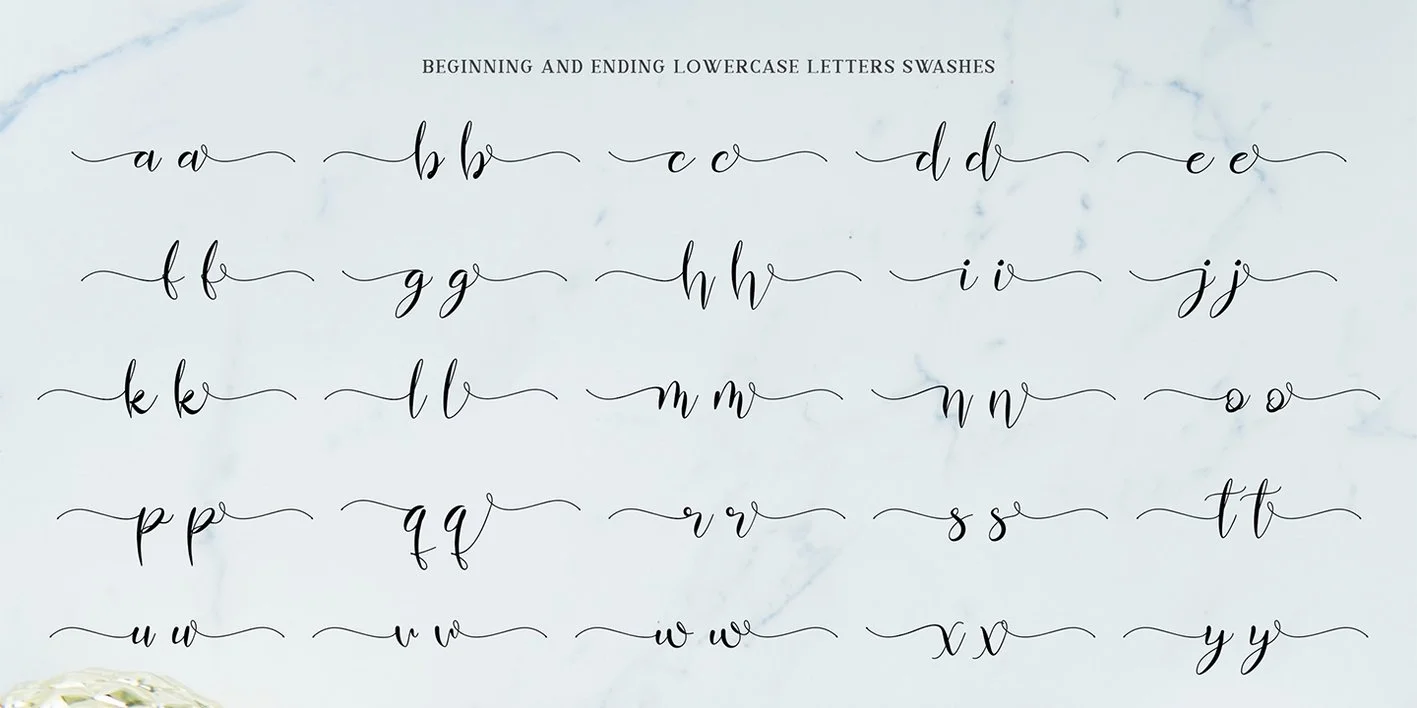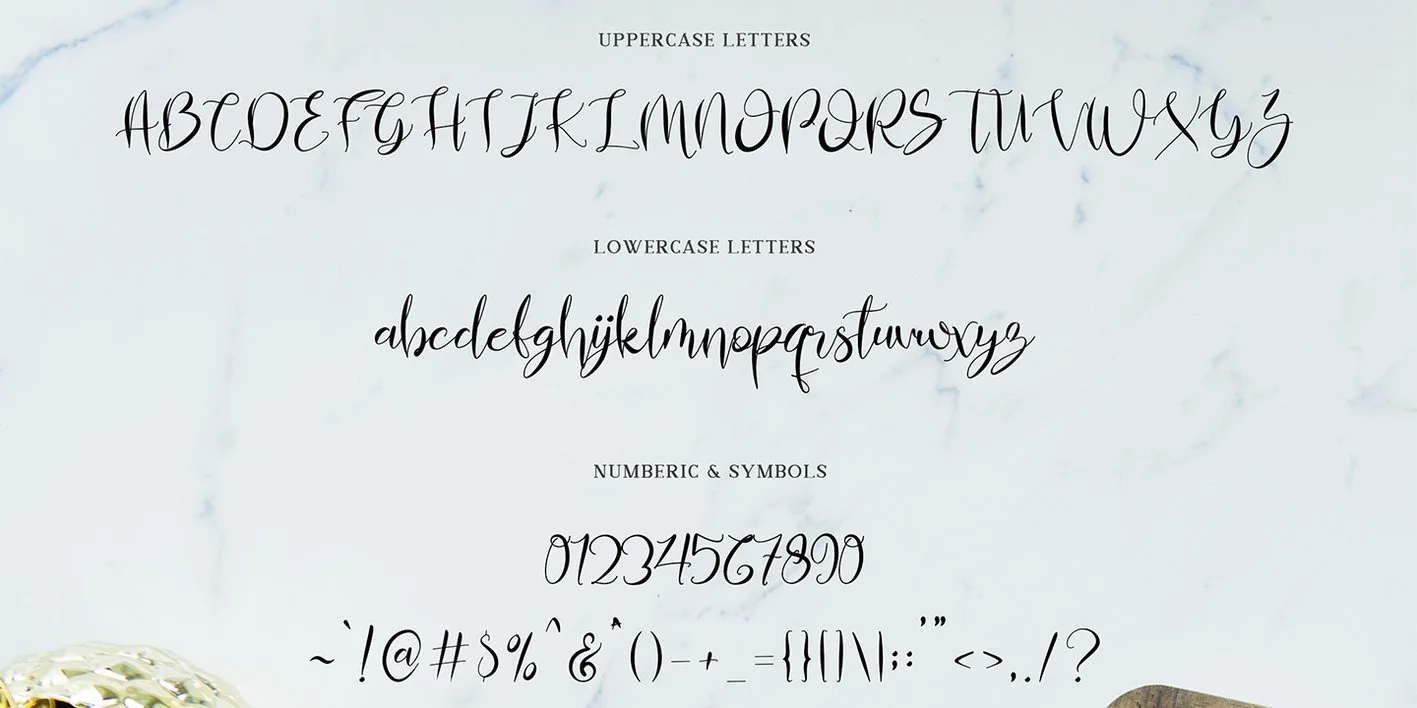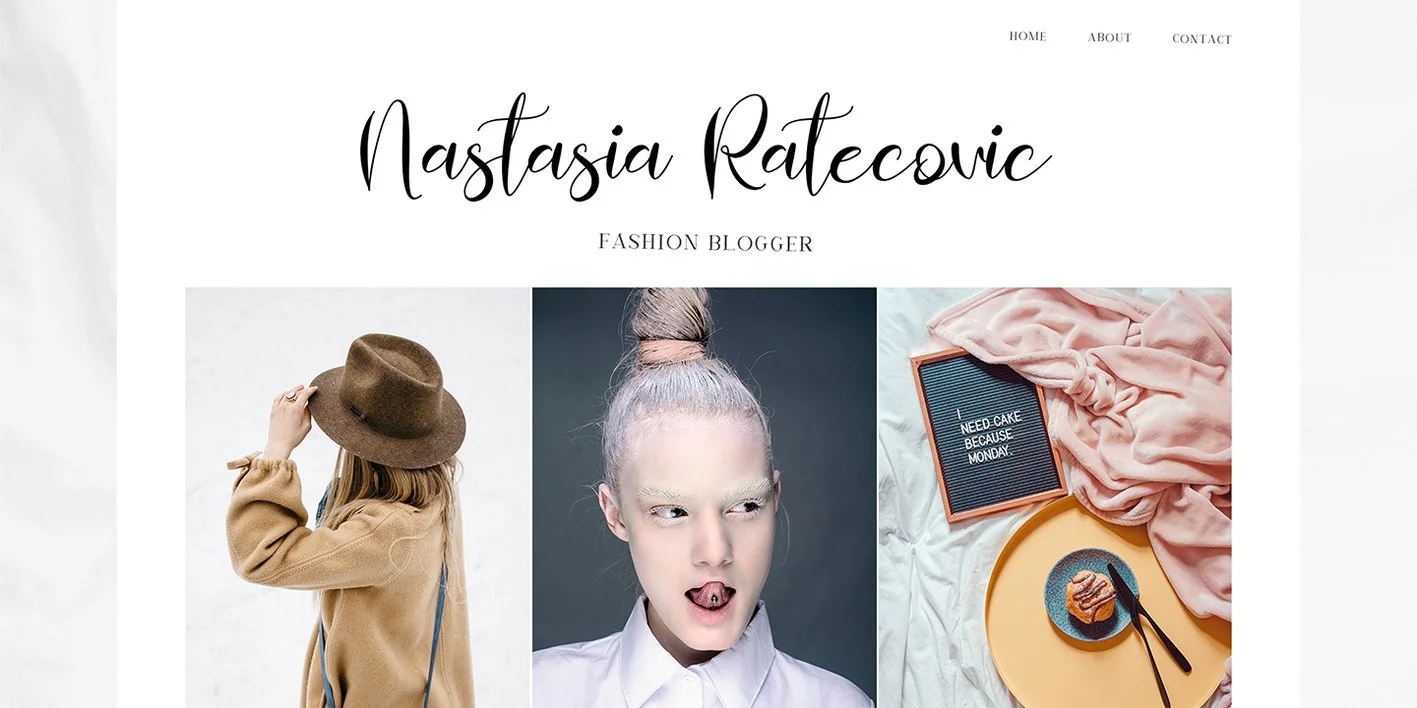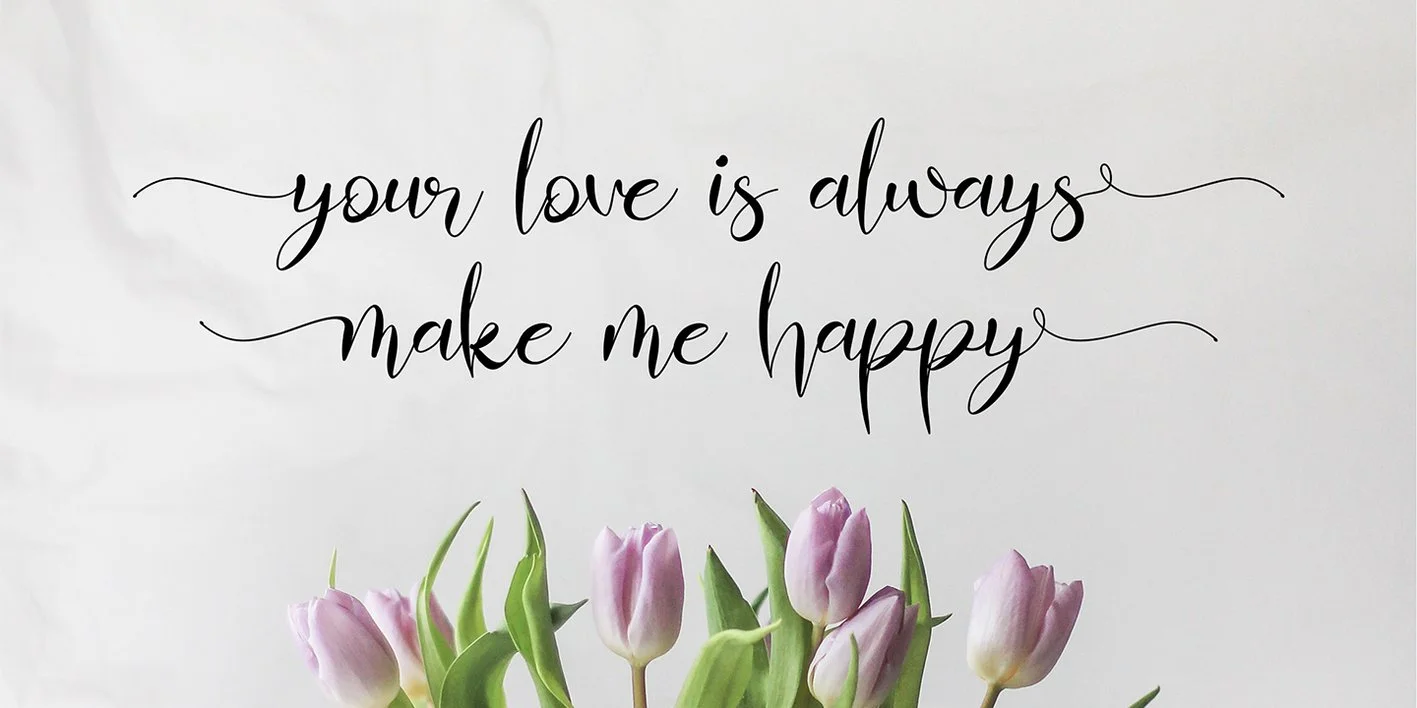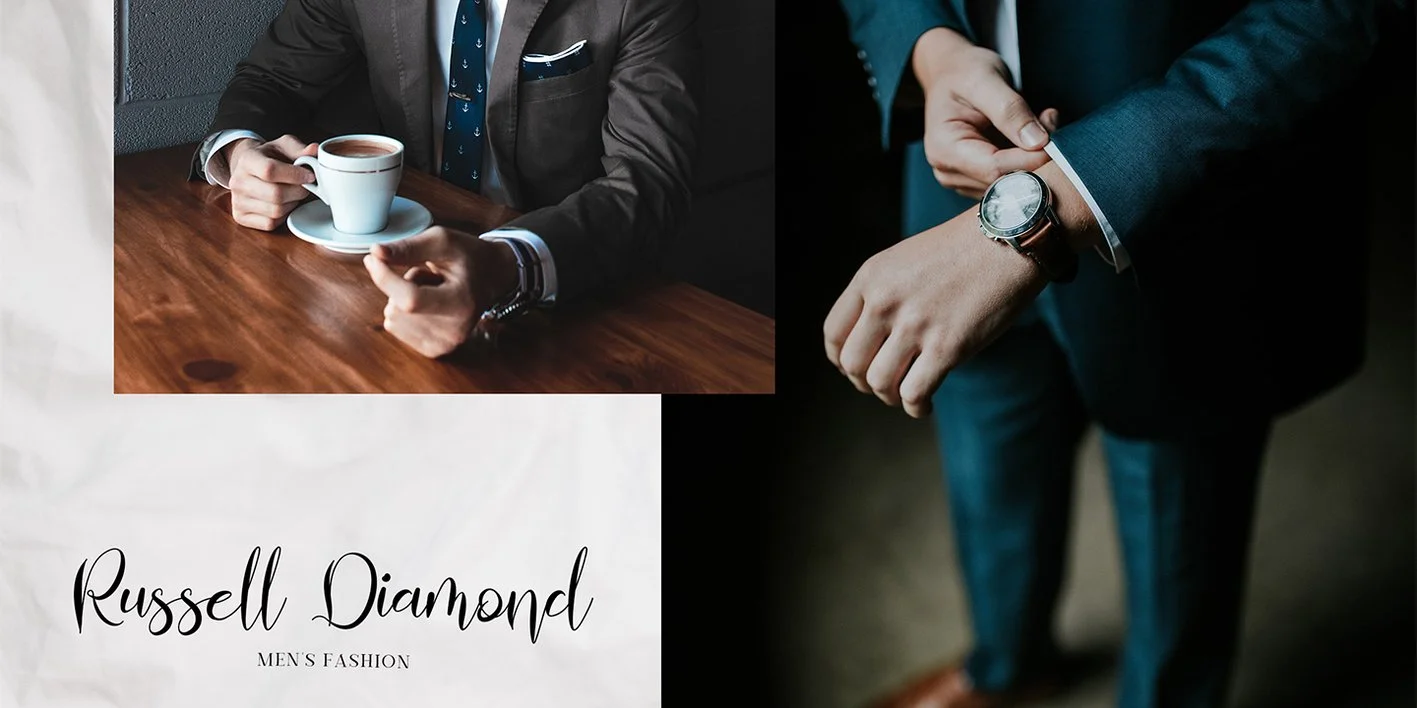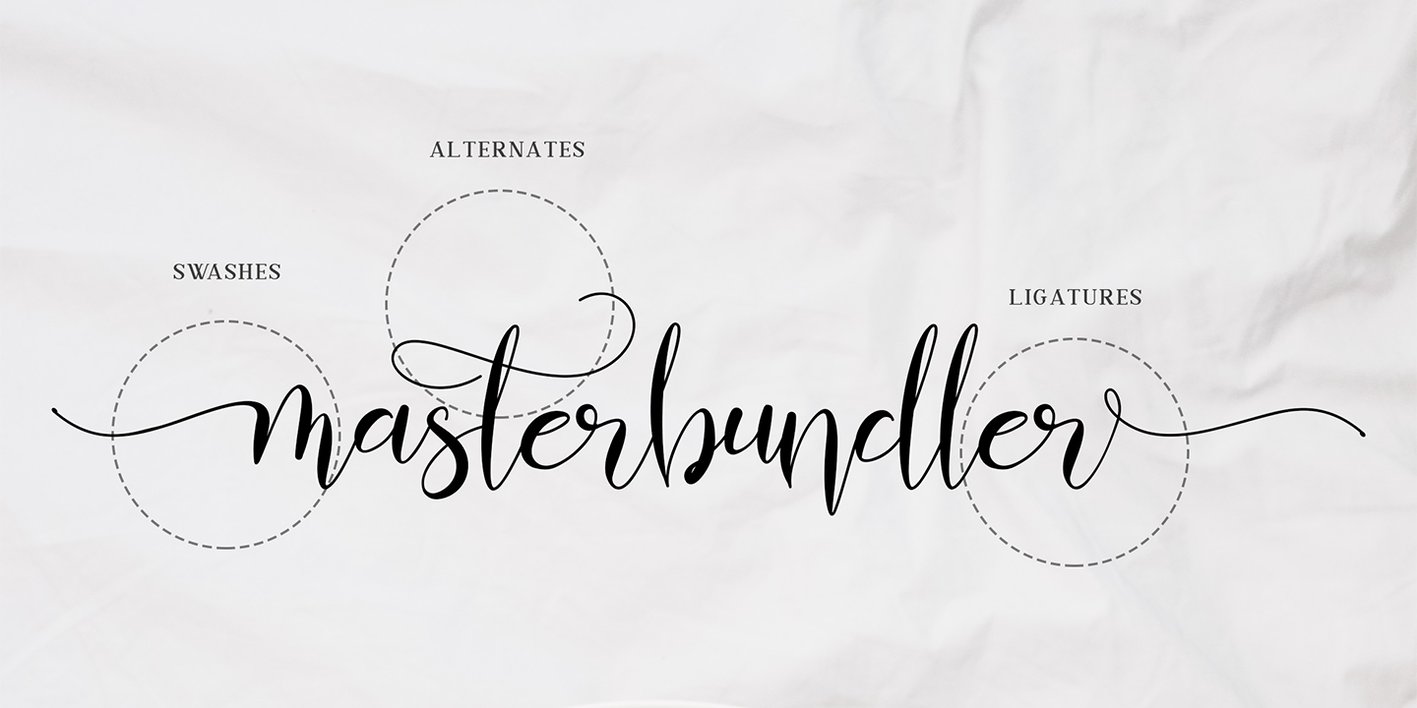
Almahira Font
Few typefaces manage to balance consistent type colour across continuous text with genuine day-to-day practicality. Almahira is one of them. The typeface brings an elegant, calligraphic sensibility to a broad range of creative disciplines, with visual harmony and precise spacing that holds up whether the work is print-first or screen-first.
In practice, Almahira proves particularly effective for perfume labels, logo design, social media graphics, luxury stationery, environmental graphics. Designers reaching for it find that the type decisions feel resolved rather than laboured — a useful quality when client timelines are tight.
The range of applications extends to poster creation, advertising campaigns, event signage, brand identity systems. That breadth is deliberate: the proportions and spacing were stress-tested across a wide range of mock briefs before the typeface was finalised.
Pairing Almahira with a contrasting serif or a neutral grotesque gives mixed-format layouts a clear visual grammar without requiring constant size adjustments to establish hierarchy.
Art directors commissioning type-led campaigns find Almahira a reliable choice for projects that demand both personality and restraint. The design avoids the self-conscious quirkiness that dates quickly, settling instead for considered distinctiveness that holds up over time.